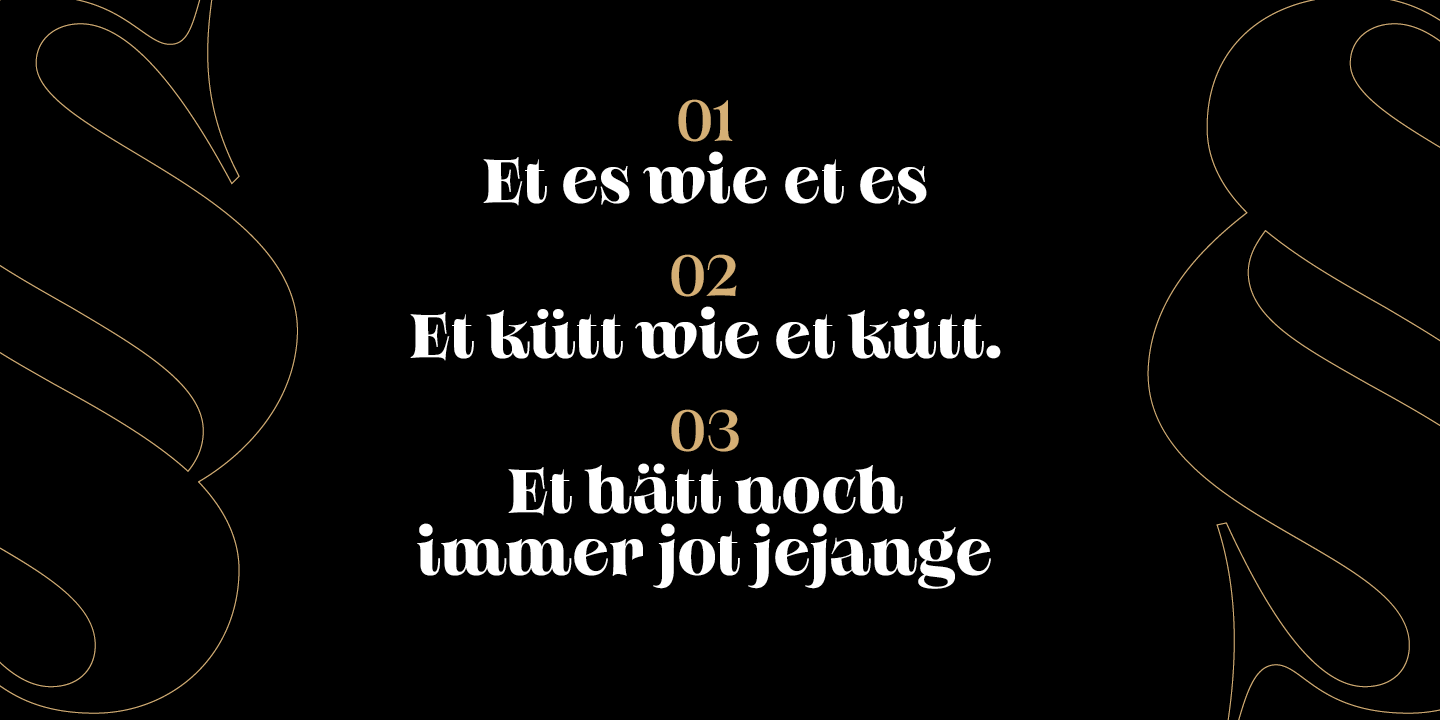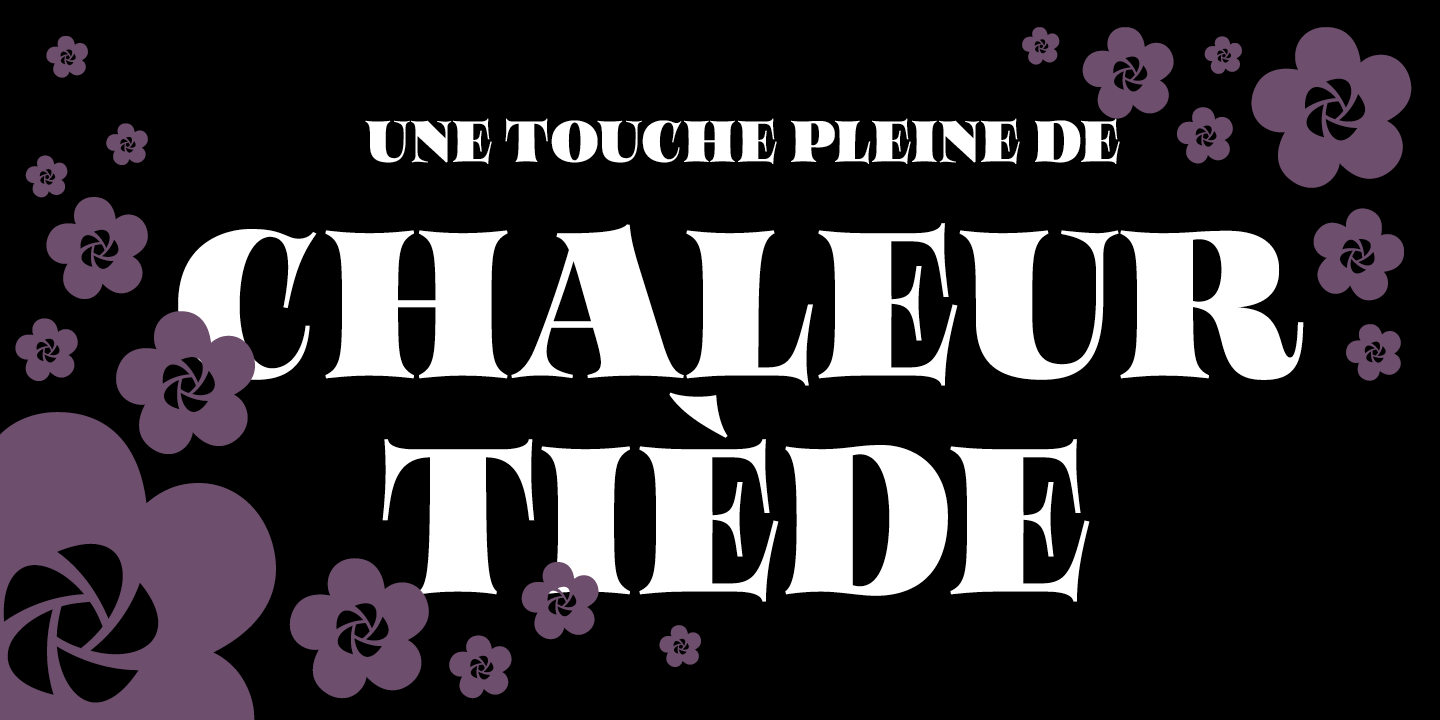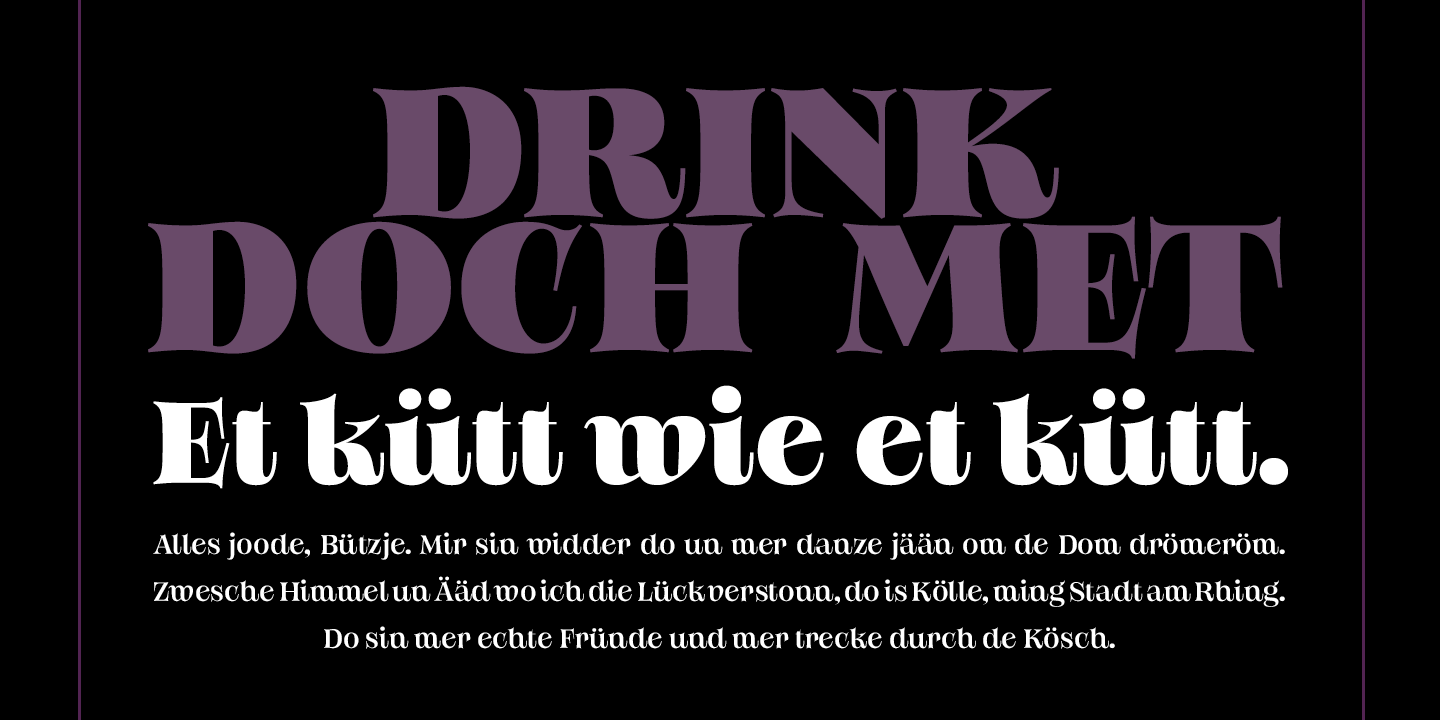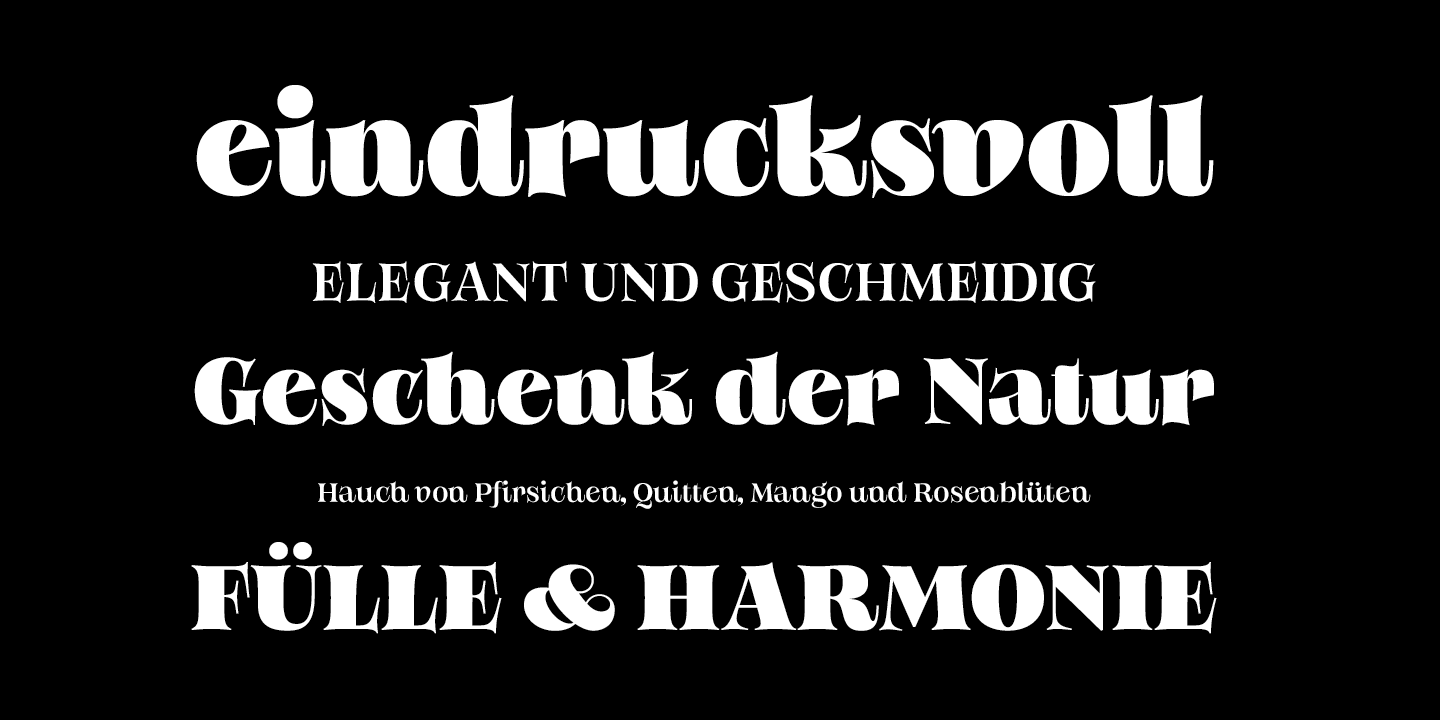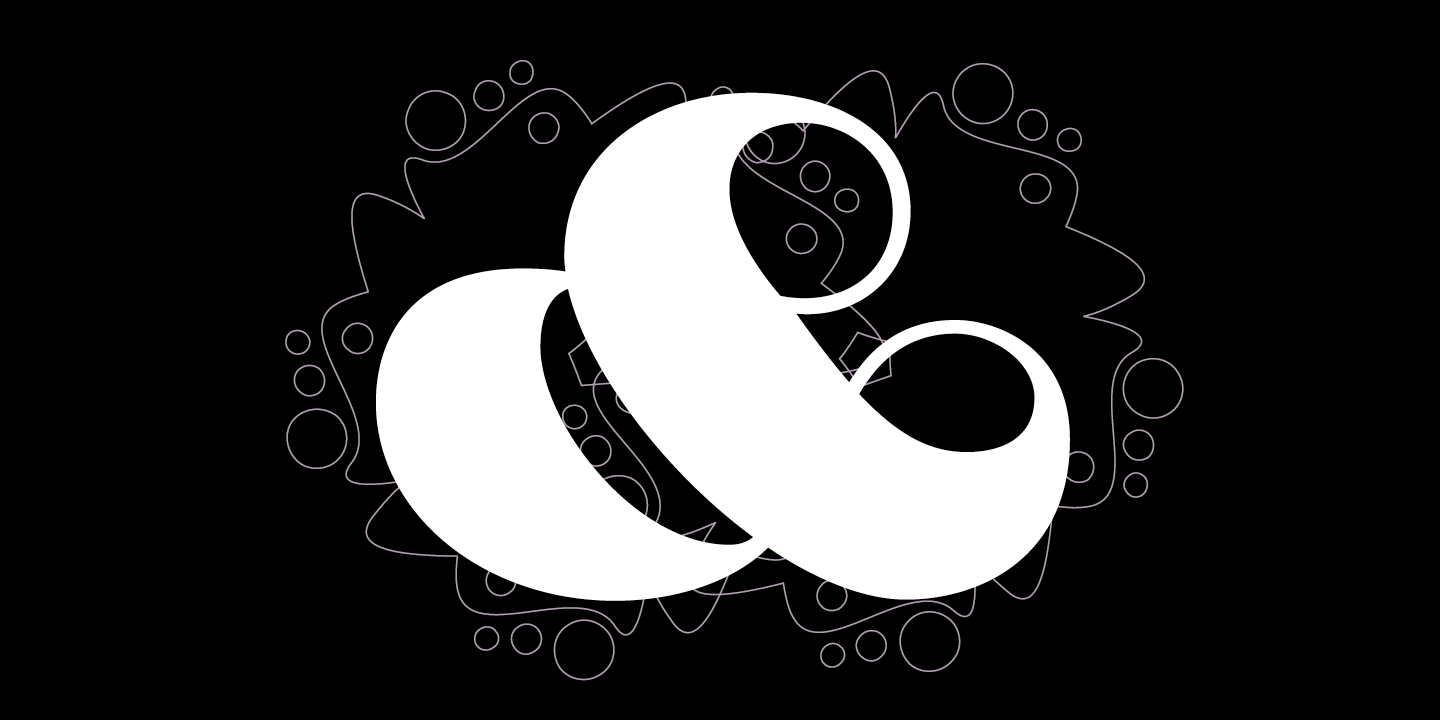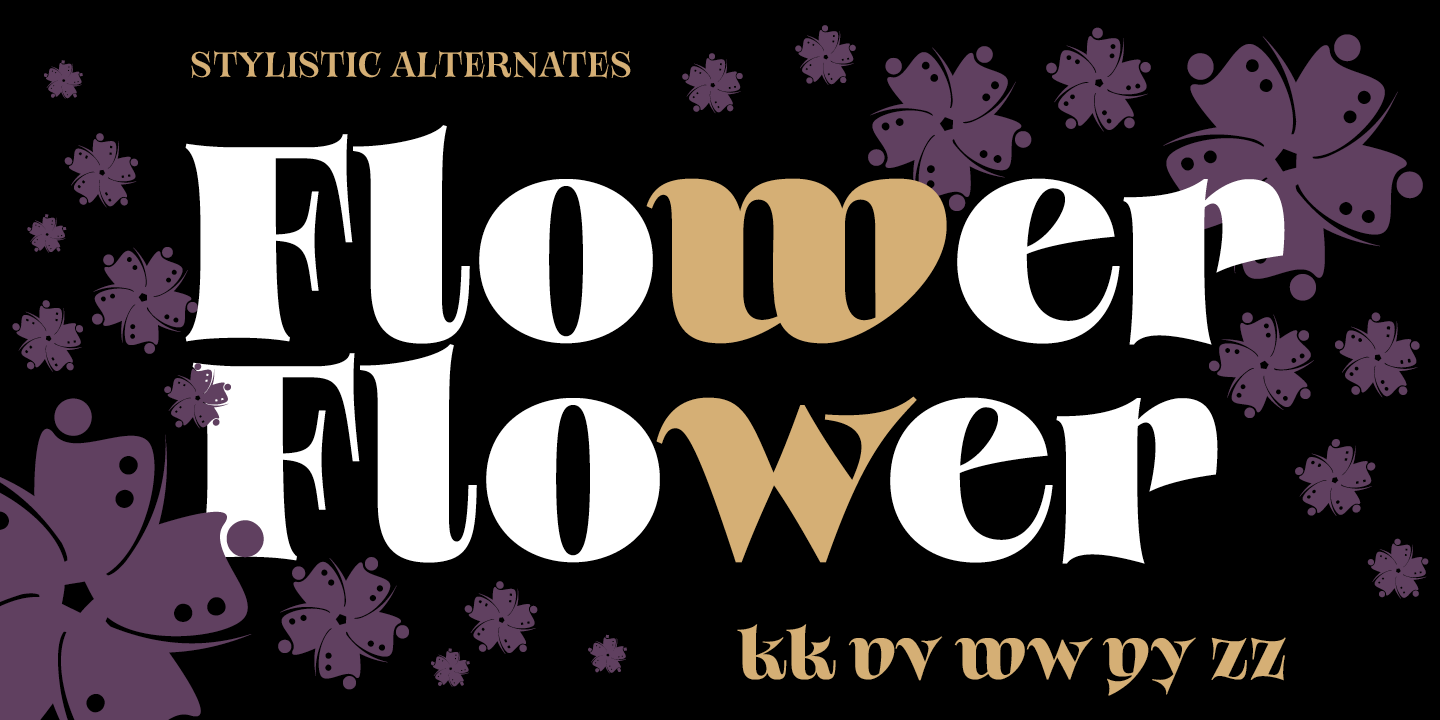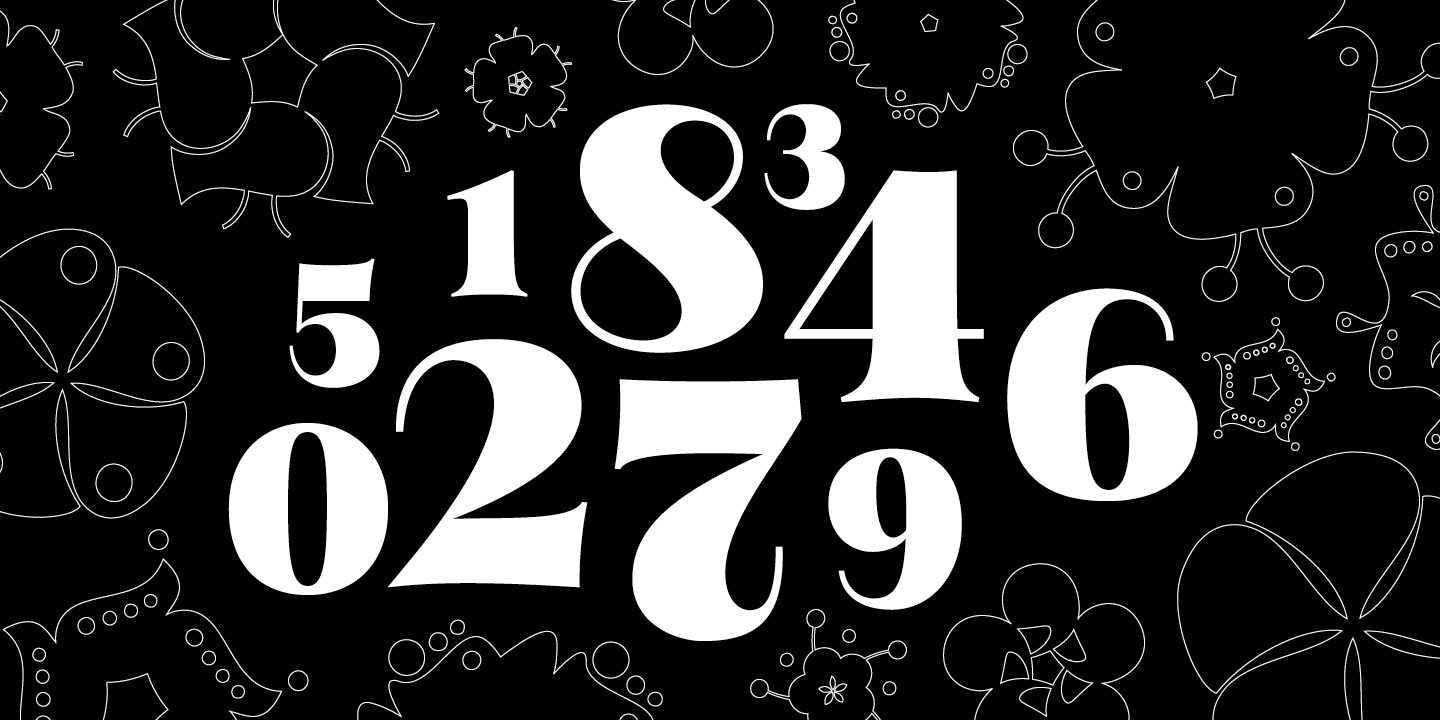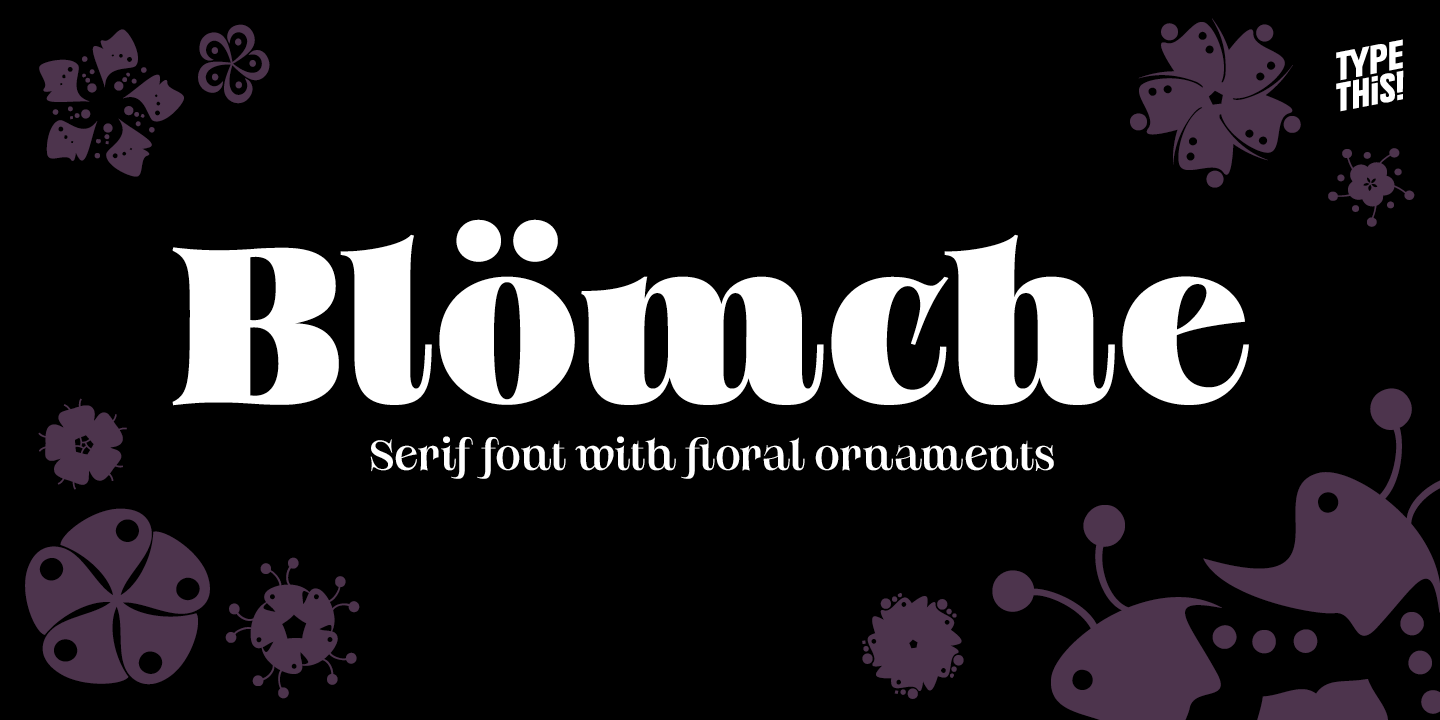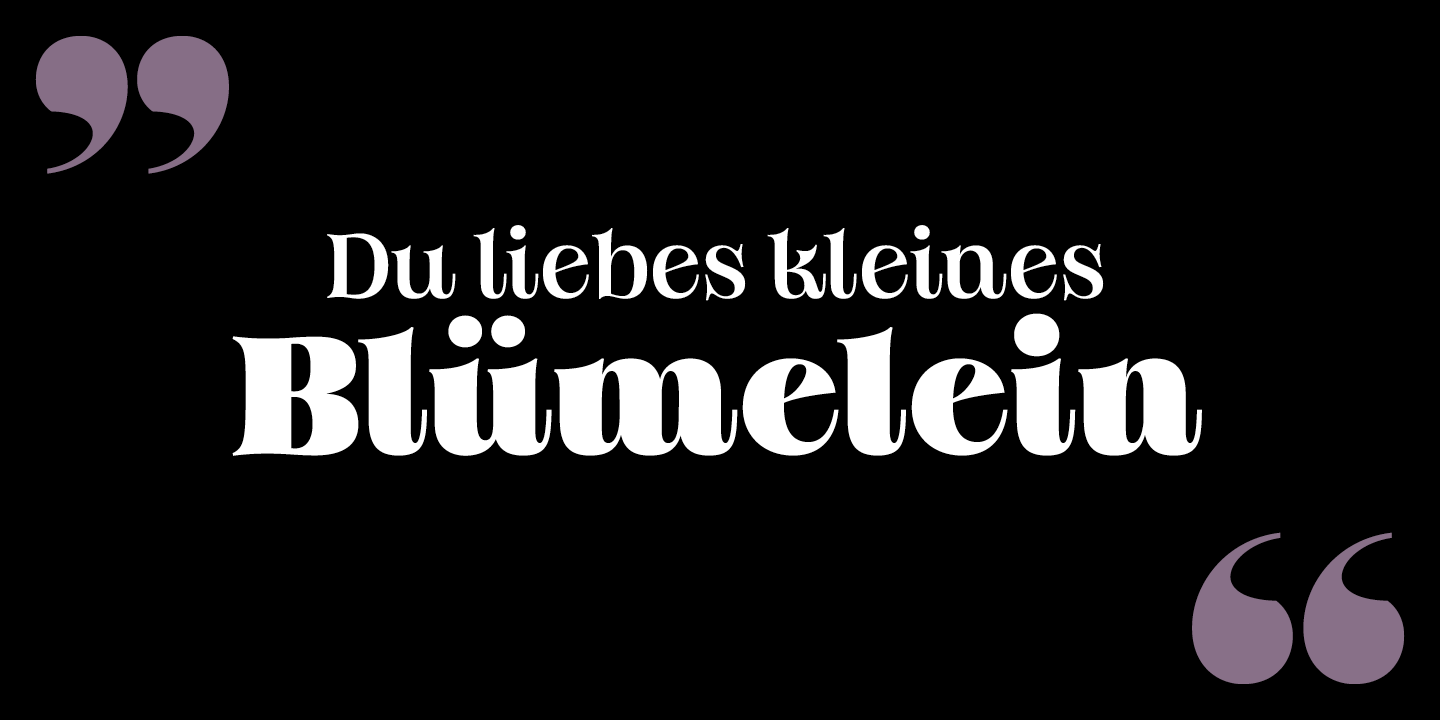
Bloemche
About Bloemche
It\’s spring time and this is my tribute to the wonderful city of Colonia! Bloemche is a warm-hearted display serif font combining a set of floral symbols with an extravagant semi-script style. It is perfect for blogging a revitalizing style into the…